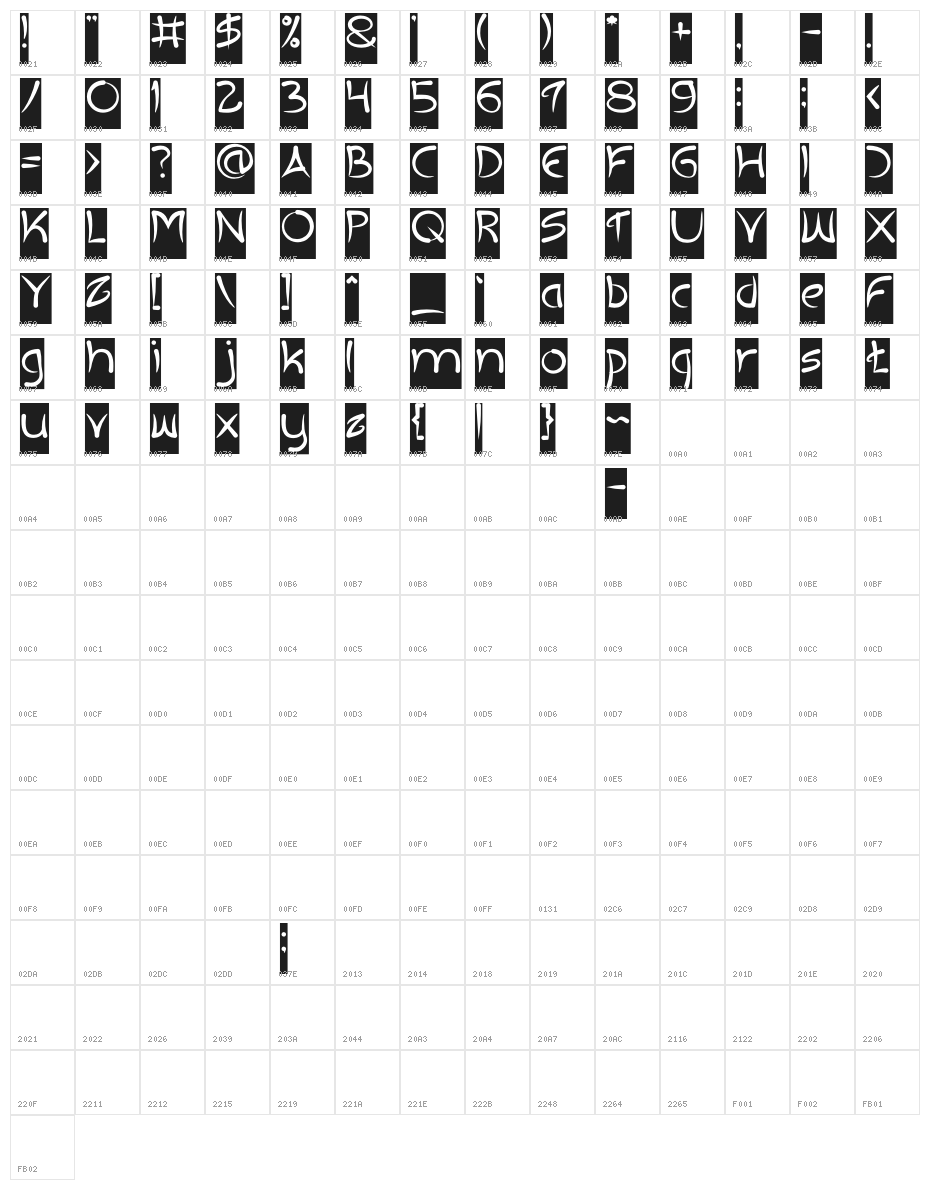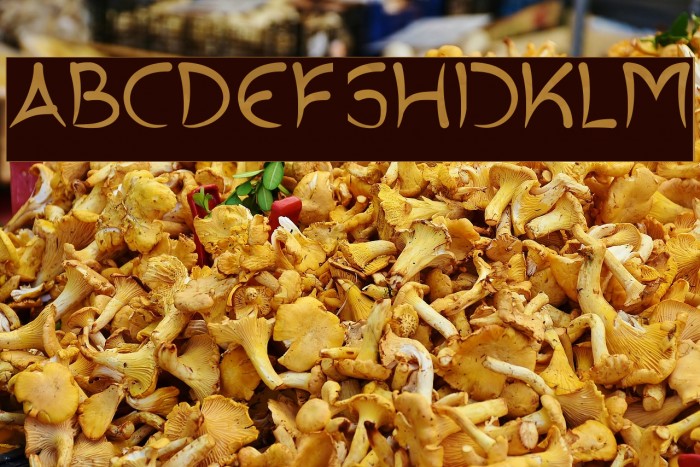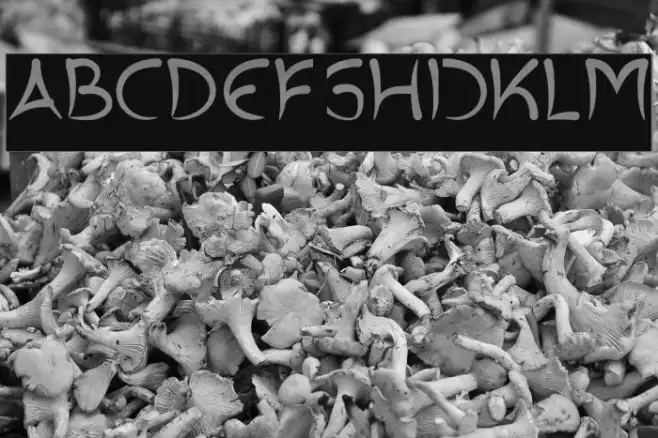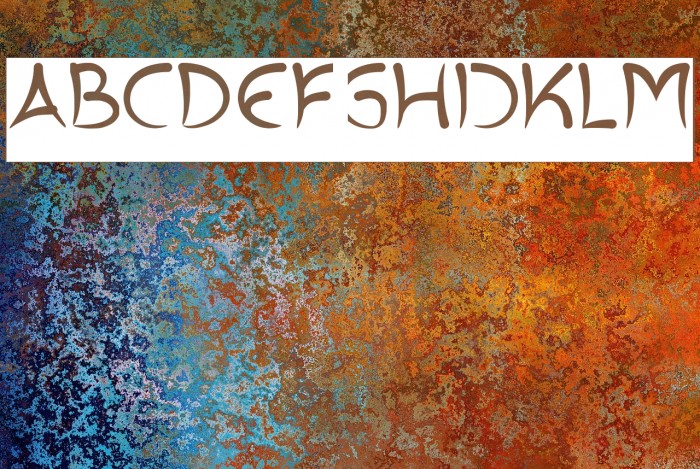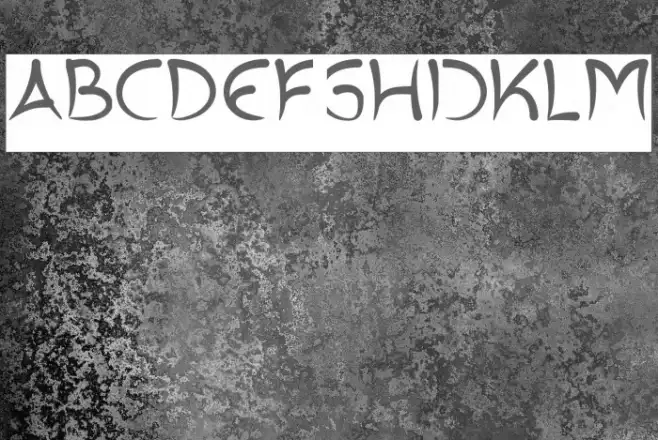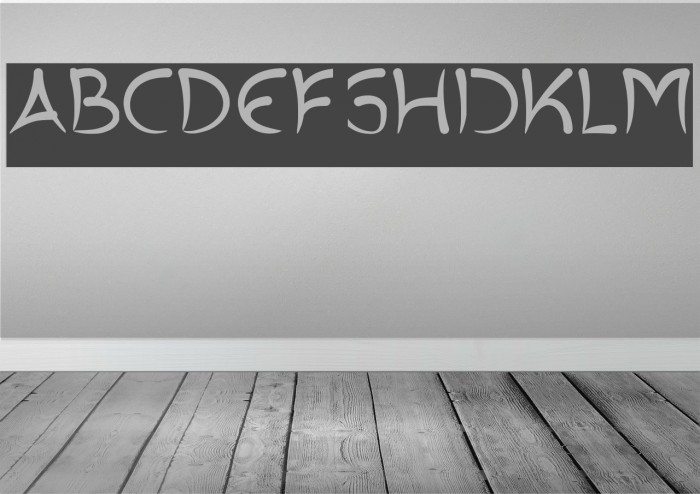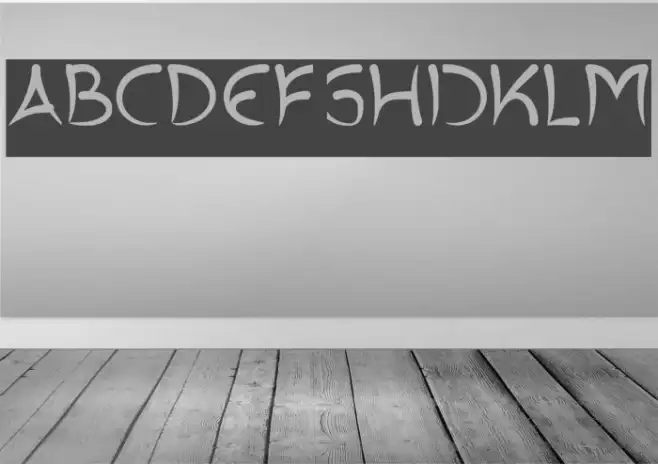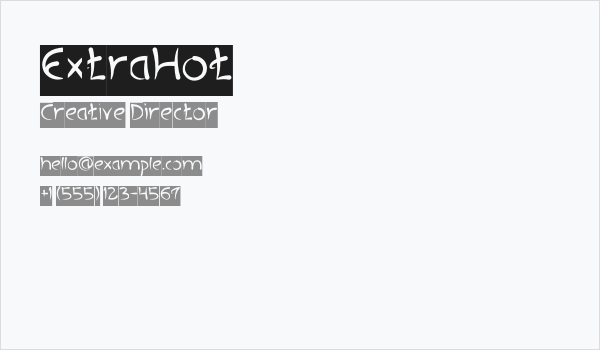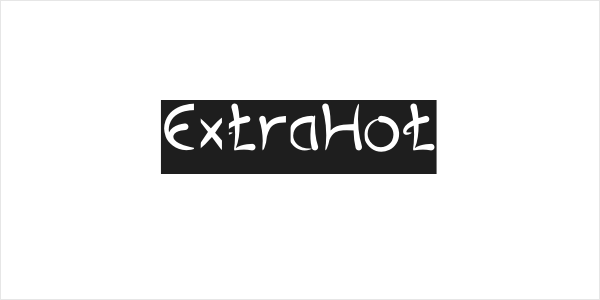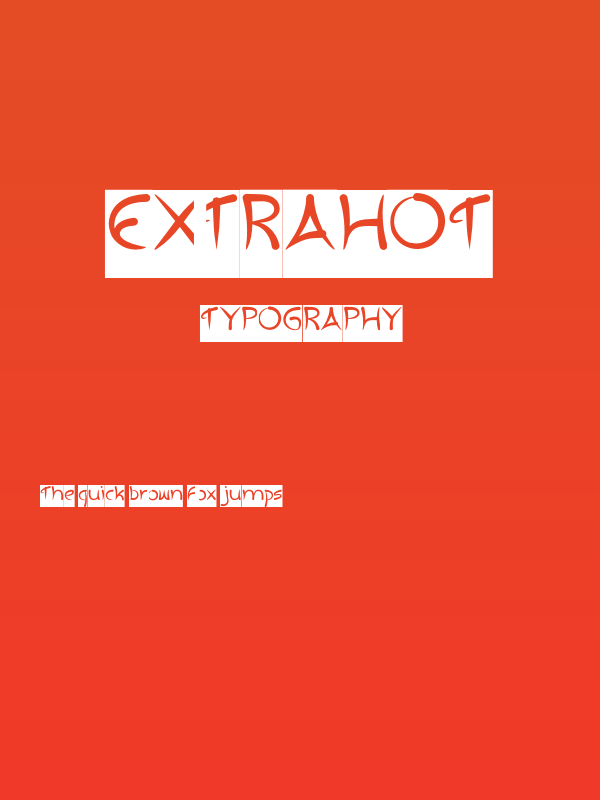
ExtraHot Font
ExtraHot Description
This font features a playful and dynamic style with a handwritten appearance. The letters are characterized by their fluid, curvy lines and varying stroke widths, giving them a lively and energetic feel. The uppercase and lowercase letters maintain a consistent style, with the uppercase being slightly more pronounced. The numerals and special characters follow the same whimsical design, making the font suitable for creative and informal projects. The overall look is both modern and artistic, with a touch of spontaneity.
| Proposed Projects | Ideal for creative projects such as greeting cards, children's books, playful branding, and artistic posters. |